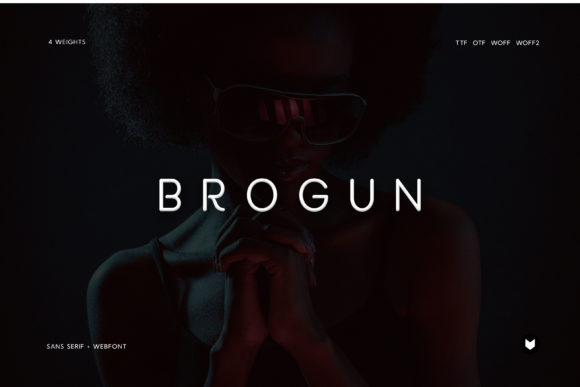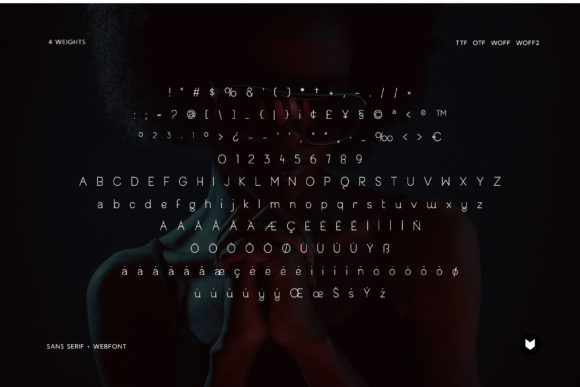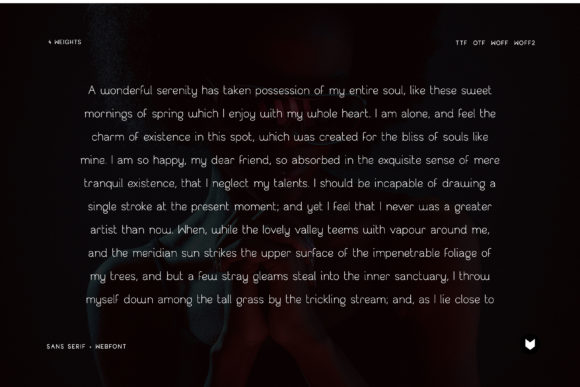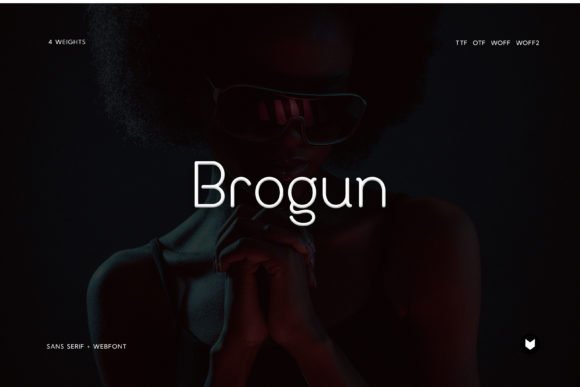
Introduction to Brogun Font
Brogun is a clean and modern display font.
This font is ideal for writing web designs, business cards, or pretty much anything else that requires a unique touch .
Key Features of Brogun Font